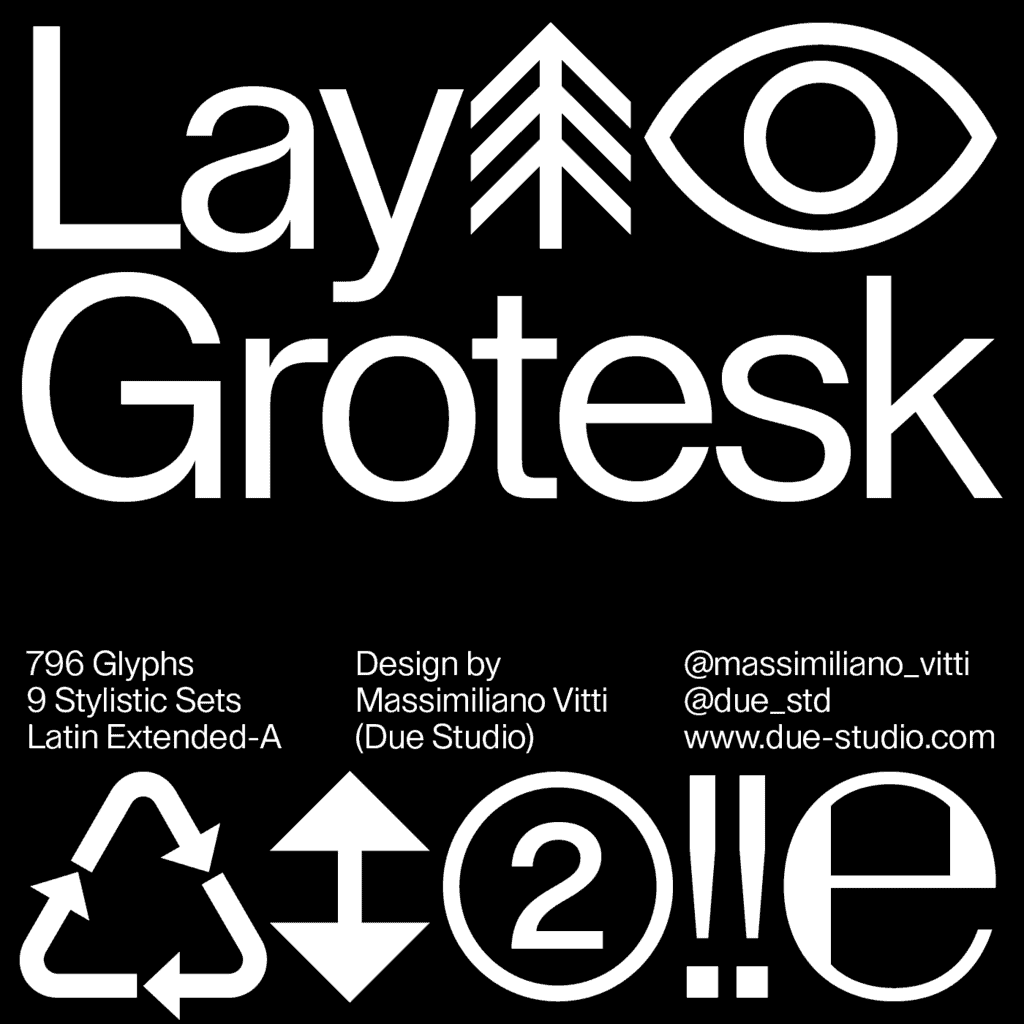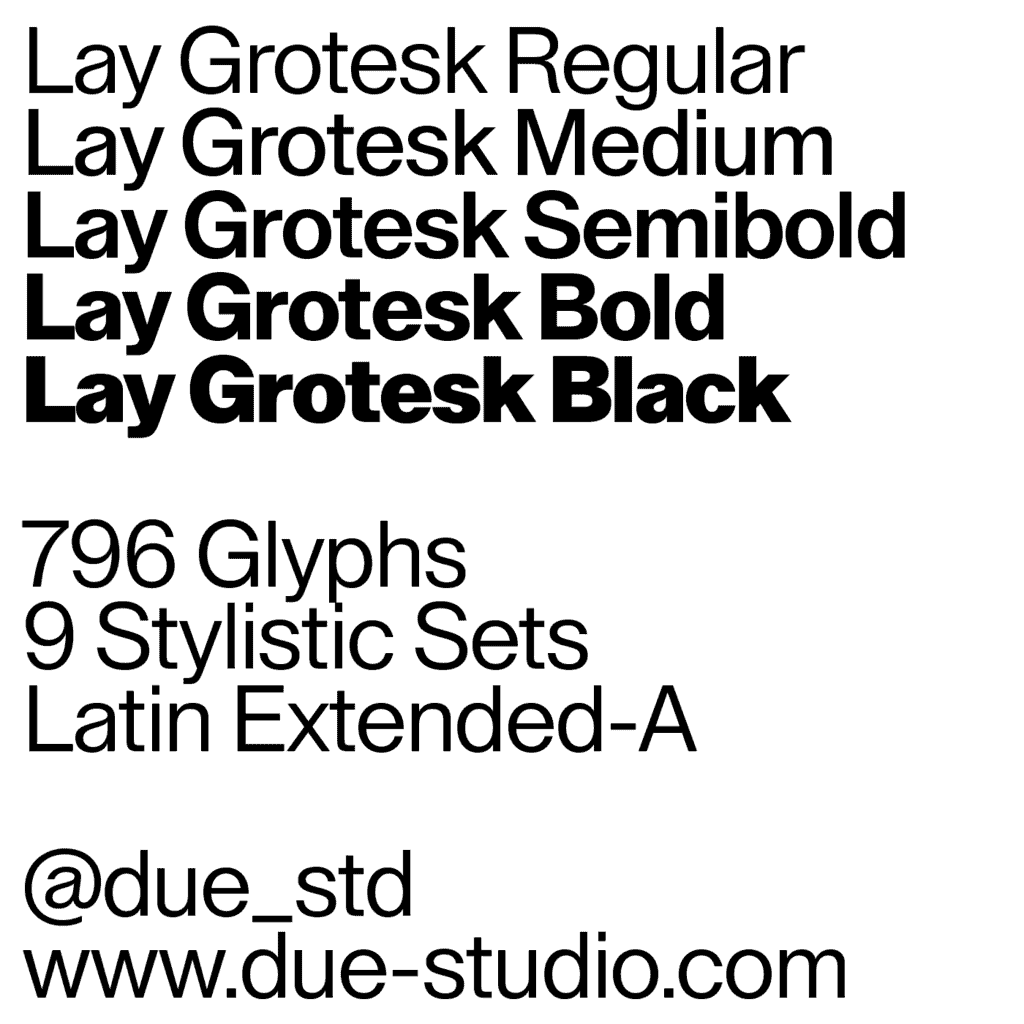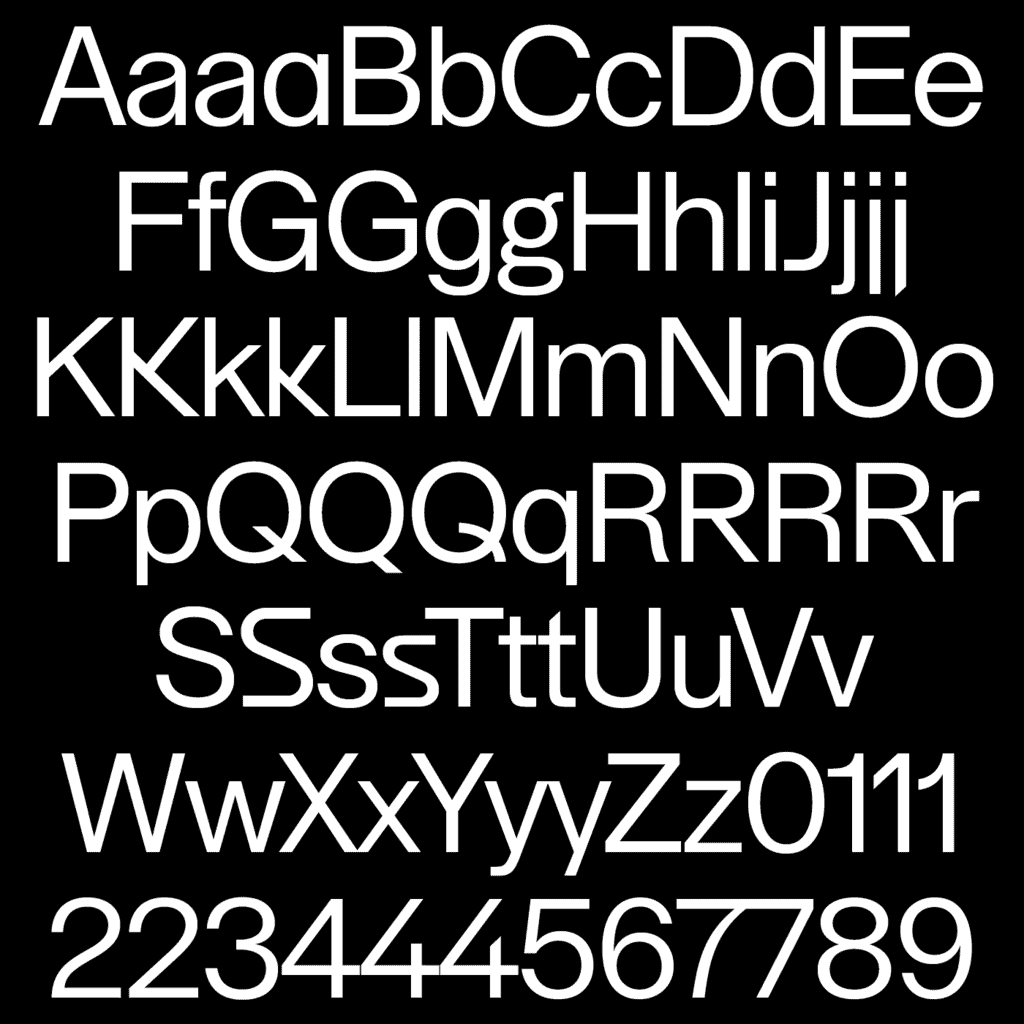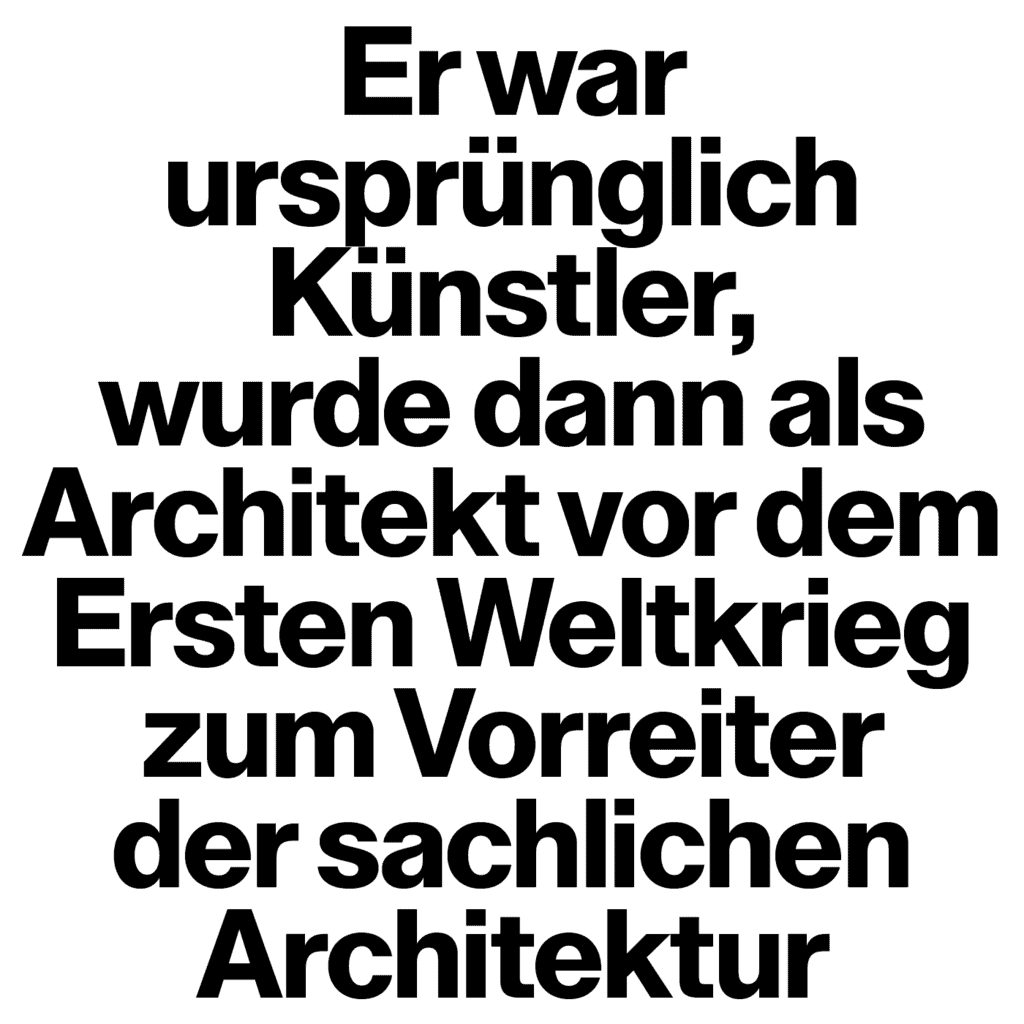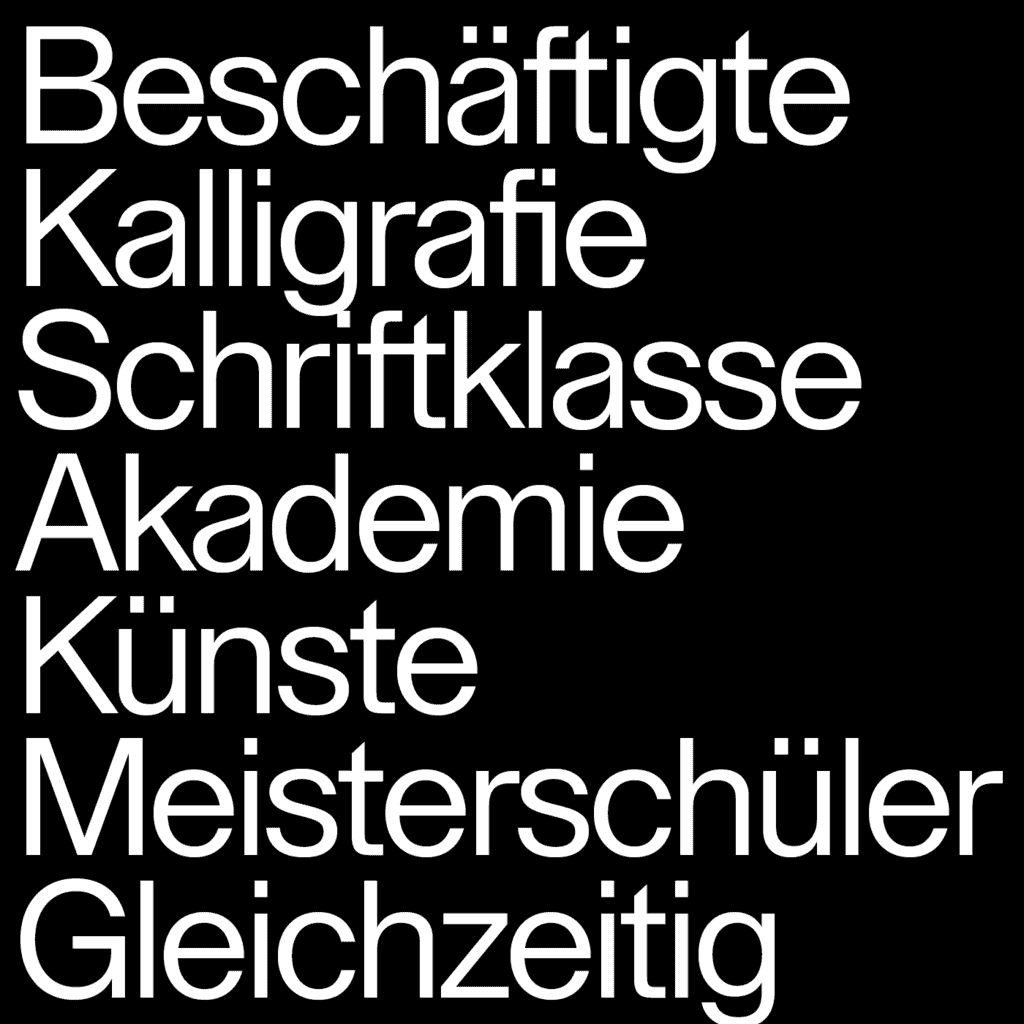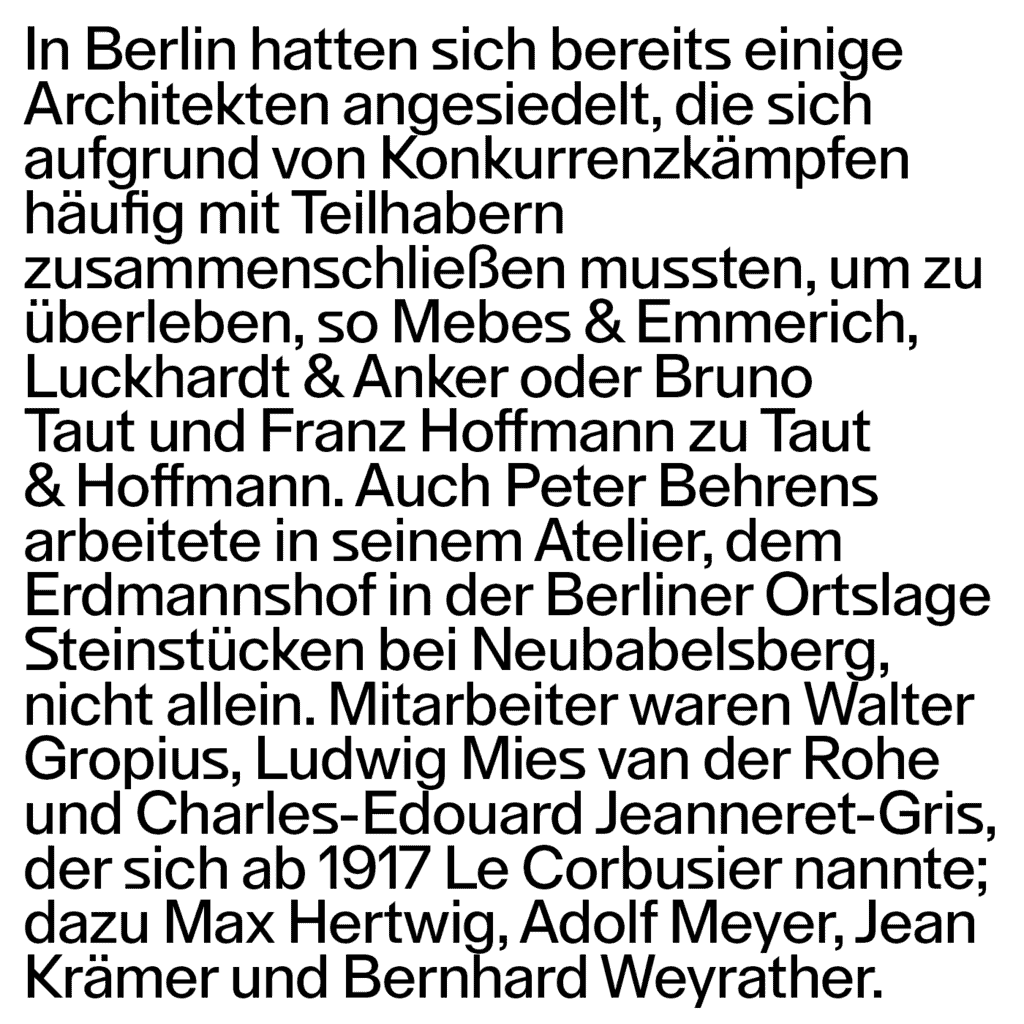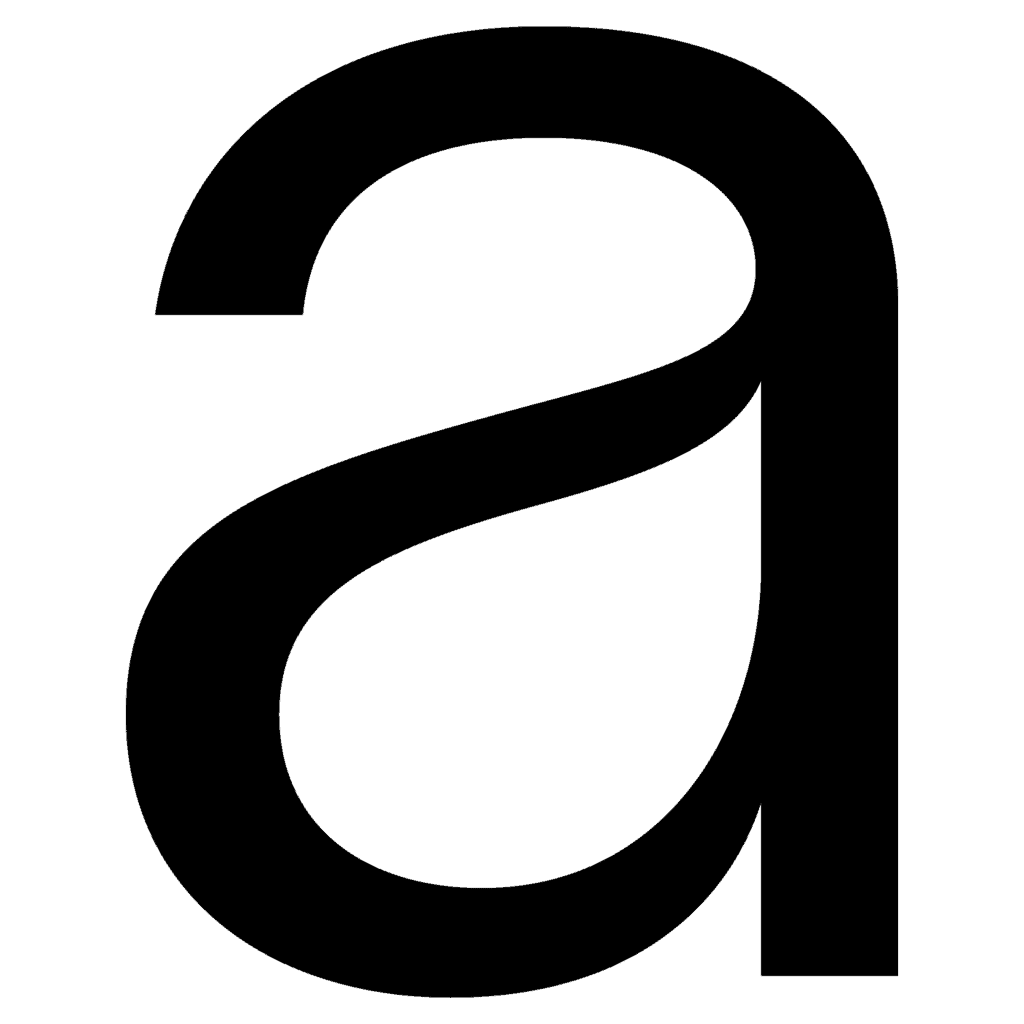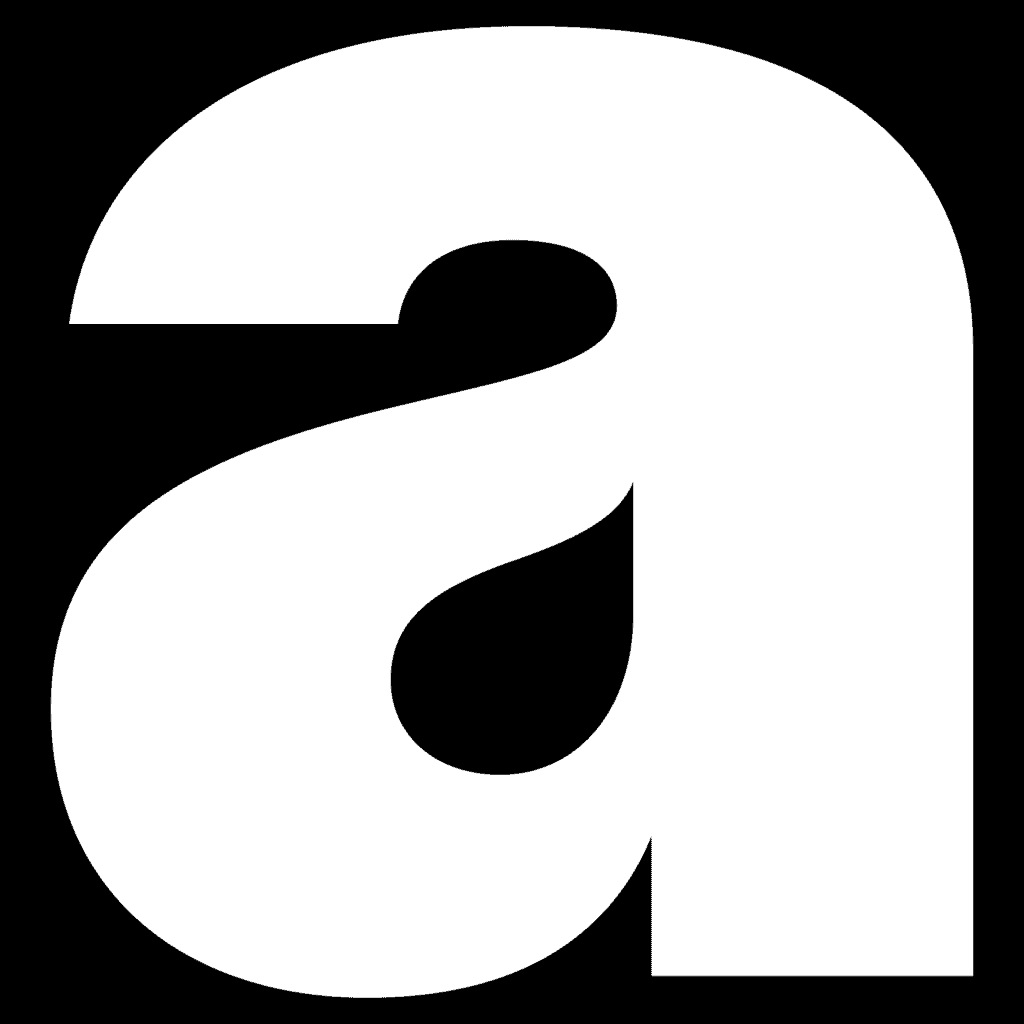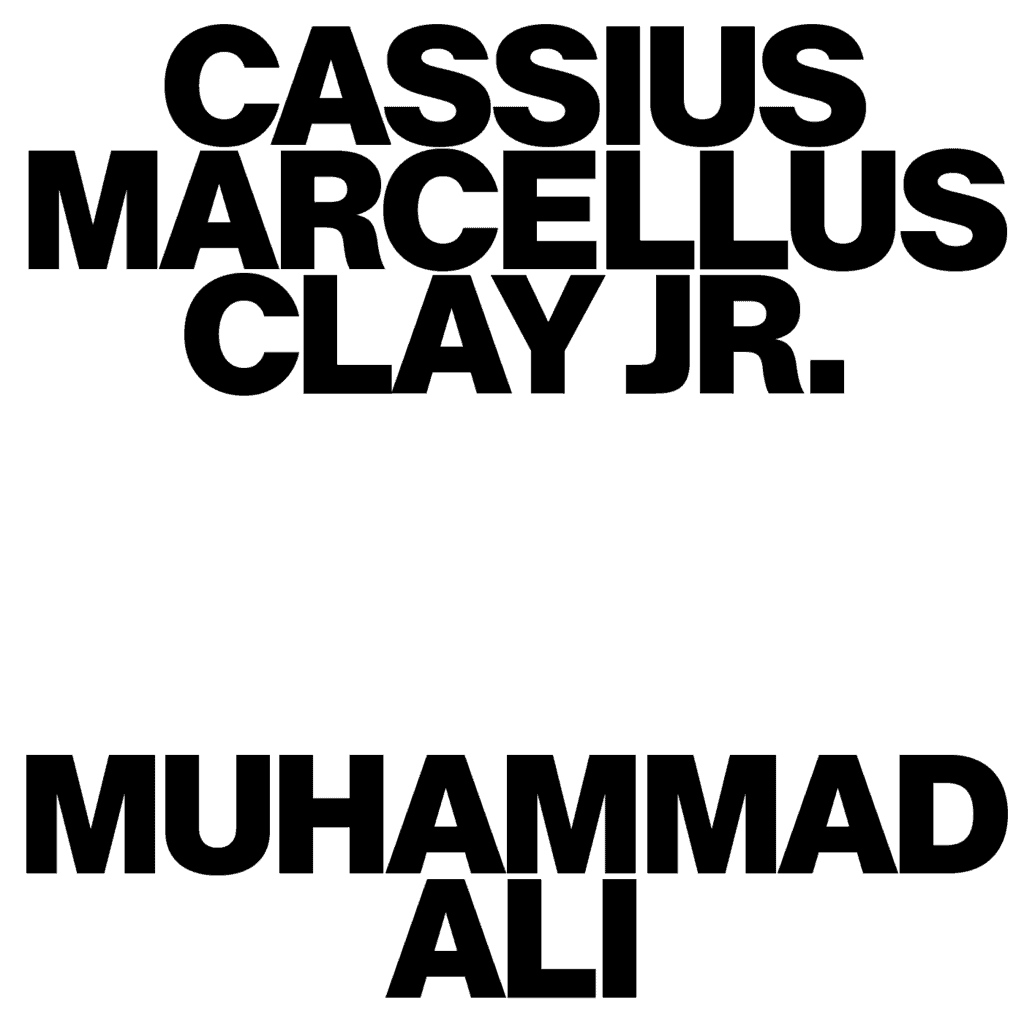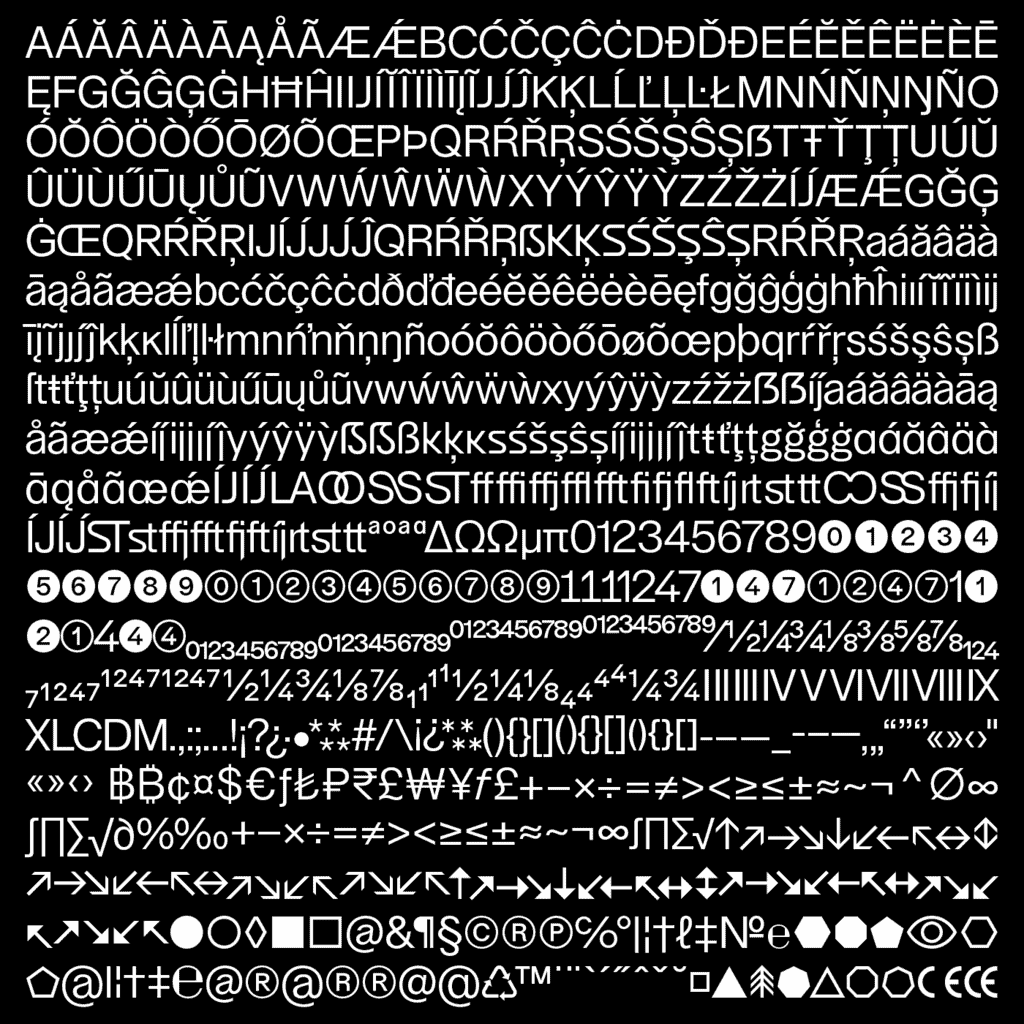
Lay Grotesk
Lay Grotesk is a contemporary sans serif typeface that reimagines the classic style of milestone grotesques such as Helvetica, Neue Haas Grotesk, and Folio.
Drawing from the foundational principles of Swiss typefaces, Lay Grotesk maintains neutrality while refining their rigidity with a softened contrast. This approach imbues the typeface with elegance, devoid of unnecessary embellishments or intrinsic meanings. Its slightly reduced letter width ensures excellent readability in small sizes, allowing for denser text lines. Conversely, at larger display sizes, Lay Grotesk reveals its geometric essence, emphasised by perfectly straight terminations on select letters. This formal interplay between soft and rigid, 'human' and 'digital,' makes it versatile for a variety of applications.
The name 'Lay' underscores its universal appeal—a timeless typeface for all. With 796 glyphs, Lay Grotesk offers extensive typographic versatility, including various stylistic sets, OpenType features, and case-sensitive forms. Additionally, it boasts numerous discretionary ligatures for both uppercase and lowercase letters, enhancing its typographic finesse and usability across different design contexts.